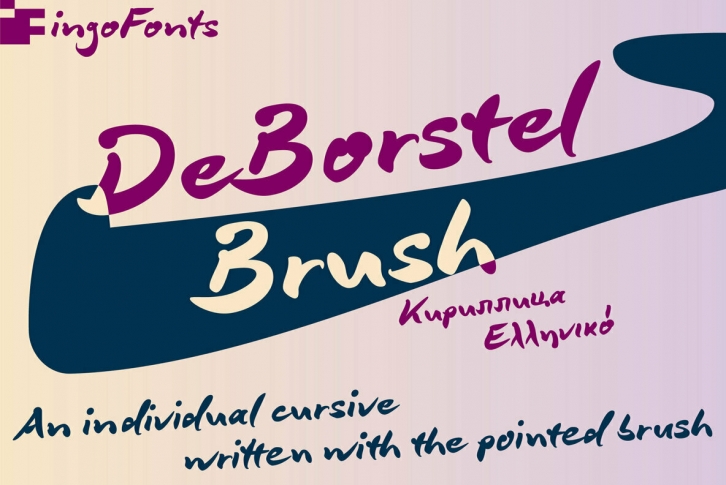
An individual cursive written with the pointed brush
The strange name of this font means nothing other than â€brush,“ but only the Dutch understand it. The typeface is spirited, amusing and flashy. I made the handwritten original of »DeBorstel Brush« quickly and without interruption with a pointed brush.
In the capitals, DeBorstel Brush appears to be almost too balanced for handwriting. In contrast, the lower case letters are intentionally very individual and uneven.
A bit more life is added to the typeface with ligatures activatedwhich are constructed with alternative letter forms — and as a result, a number of problematic letter-combinations are improved.
And if this typeface is still not lively enough for you, the additional alternative character forms a e g i j l n o s t u z are available with the Open Type-Function â€Discretional Ligatures“.
Alternative forms and ligatures can be switched on and off with the help of OpenType-Functions.
DeBorstel Brush is suitable for all European languages. It includes the symbols of the Unicode-groups â€Basic Latin“ and â€ISO 8859-1“ respectively â€Latin 1“ for Western Europe, â€Latin Extended-A,“ for Central and Eastern Europe incl. Turkish, and even Cyrillic and Greek, too.